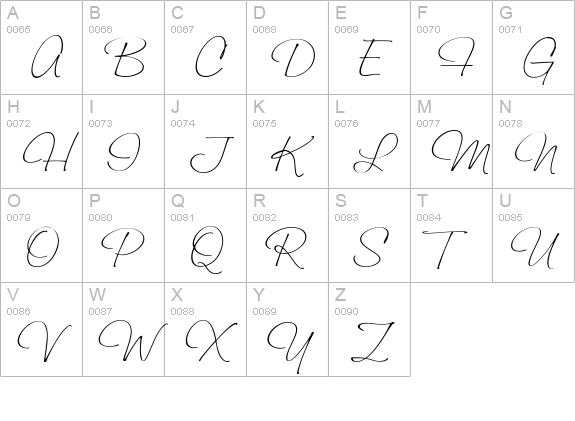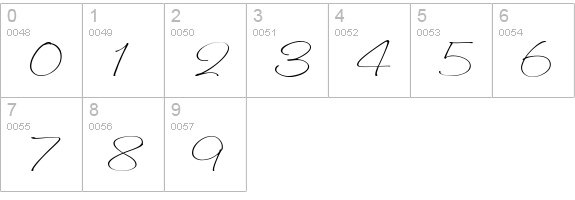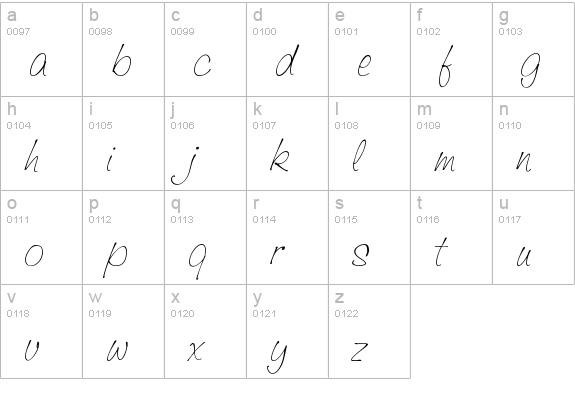
Saginaw Light Font Details
Saginaw Light is a refined, elegant variant in the Saginaw typeface family \xE2\x80\x94 well suited to elegant body text, refined sub-headings, and luxury branding.
Introducing Saginaw Light Font, a stunning typeface that seamlessly combines elegance with modernity. With its clean lines and refined curves, this font exudes sophistication and versatility, making it perfect for a wide range of design projects. Saginaw Light Font is characterised by its delicate yet strong appearance, offering a balance between professionalism and creativity. Its slim and graceful letterforms make it ideal for branding, logo design, packaging, editorial layouts, and much more. This font's versatility extends to its extensive language support, ensuring that it can be used in various contexts and regions. Whether you're designing for English, French, Spanish, or any other language, Saginaw Light Font has got you covered. One of the best parts about Saginaw Light Font is that it is available for free download at FontsMarket.com. This means that you can access this remarkable typeface without any cost, allowing you to add a touch of elegance to your designs without breaking the bank. Saginaw Light Font's free availability makes it even more appealing, as it provides designers and creatives with the opportunity to experiment and explore its potential without any limitations. Whether you're a professional designer or just starting your creative journey, this font offers a world of possibilities. Don't miss out on the chance to elevate your designs with Saginaw Light Font. Download it for free at FontsMarket.com and unlock the limitless potential of this exquisite typeface.